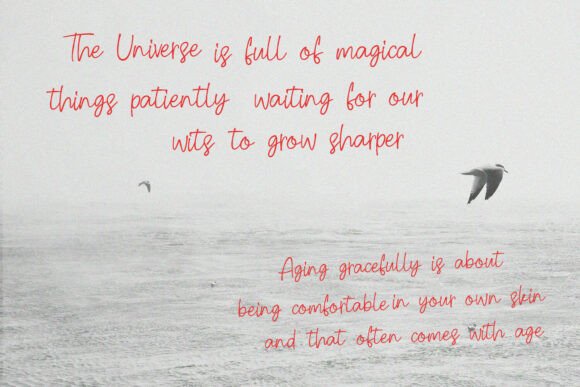
Akrasse Font: Elevate Your Design with Elegance and Versatility
When it comes to creating visually stunning designs, the right font can make all the difference. Introducing Akrasse Font, a chic and effortlessly stylish handwritten script font that exudes elegance and versatility. Designed to deliver a modern, confident feel, Akrasse is perfect for a wide range of projects, from personal branding and fashion editorials to wedding stationery and social media graphics.
The Essence of Akrasse Font
Akrasse Font, also known as Alrasse, is a beautiful handwritten script font that embodies refined casualness. Its flowing curves and natural pen strokes give it an authentic and graceful handwritten touch, making it ideal for projects that seek to convey a sense of elegance and sophistication. Whether you’re looking to create a stunning logo, a captivating social media graphic, or a beautiful wedding invitation, Akrasse Font is the perfect choice.
Key Features of Akrasse Font
- Elegant Handwritten Style: Akrasse Font boasts a chic and effortlessly stylish handwritten script that adds a touch of elegance to any design.
- Flowing Curves and Natural Pen Strokes: The font’s flowing curves and natural pen strokes give it a modern, confident feel that’s perfect for a wide range of projects.
- Versatility: Akrasse Font is designed to be versatile, making it suitable for various applications, from personal branding and fashion editorials to wedding stationery and social media graphics.
- Refined Casualness: The font’s refined casualness makes it ideal for projects that seek an authentic and graceful handwritten touch.
Perfect for Personal Branding
Akrasse Font is an excellent choice for personal branding projects. Its elegant handwritten style and modern feel make it perfect for creating stunning logos, business cards, and letterheads. With Akrasse Font, you can establish a strong brand identity that exudes confidence and sophistication.
Ideal for Fashion Editorials
Fashion editorials require a font that’s stylish, elegant, and attention-grabbing. Akrasse Font fits the bill perfectly. Its flowing curves and natural pen strokes add a touch of glamour to any design, making it perfect for fashion magazines, blogs, and social media graphics.
Wedding Stationery and Invitations
Akrasse Font is also an excellent choice for wedding stationery and invitations. Its elegant handwritten style and refined casualness make it perfect for creating beautiful wedding invitations, save-the-date cards, and thank-you notes.
Social Media Graphics and More
Akrasse Font is versatile and can be used for a wide range of projects, including social media graphics, posters, flyers, and brochures. Its modern feel and elegant style make it perfect for any design that requires a touch of sophistication.
Why Choose Akrasse Font?
- Unique and Eye-Catching: Akrasse Font is a unique and eye-catching font that will make your designs stand out from the crowd.
- Elegant and Sophisticated: The font’s elegant handwritten style and modern feel make it perfect for projects that require a touch of sophistication.
- Versatile: Akrasse Font is designed to be versatile, making it suitable for various applications.
- Easy to Read: The font is easy to read, making it perfect for body text and headlines.
Tips for Using Akrasse Font
- Pair it with a Sans-Serif Font: Pair Akrasse Font with a sans-serif font for a modern and stylish look.
- Use it for Headlines and Titles: Use Akrasse Font for headlines and titles to add a touch of elegance and sophistication.
- Experiment with Colors: Experiment with different colors to find the perfect combination that matches your brand’s identity.
Akrasse Font, also known as Alrasse, is a chic and effortlessly stylish handwritten script font that exudes elegance and versatility. With its flowing curves and natural pen strokes, Akrasse delivers a modern, confident feel perfect for a wide range of projects. Whether you’re looking to create a stunning logo, a captivating social media graphic, or a beautiful wedding invitation, Akrasse Font is the perfect choice.
- What is Akrasse Font?: Akrasse Font, also known as Alrasse, is a chic and effortlessly stylish handwritten script font.
- What is Akrasse Font used for?: Akrasse Font is perfect for a wide range of projects, including personal branding, fashion editorials, wedding stationery, social media graphics, and more.
- Is Akrasse Font easy to read?: Yes, Akrasse Font is easy to read, making it perfect for body text and headlines.